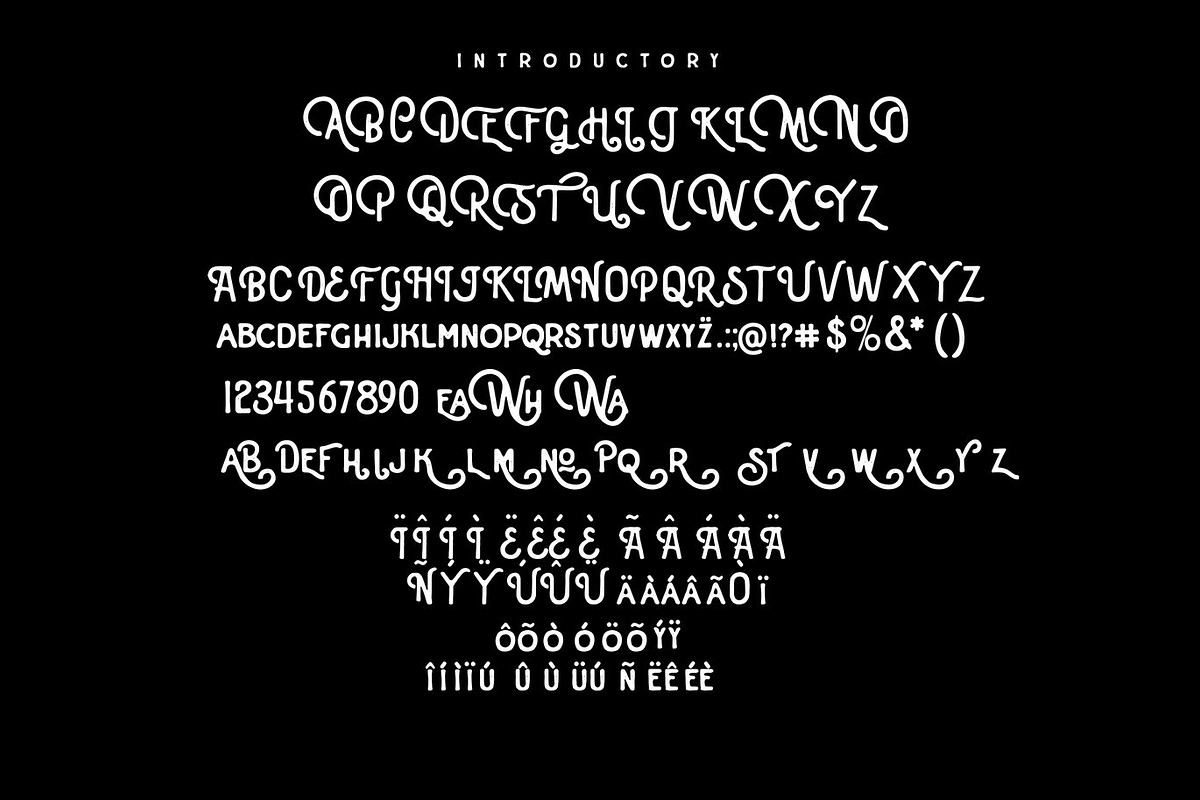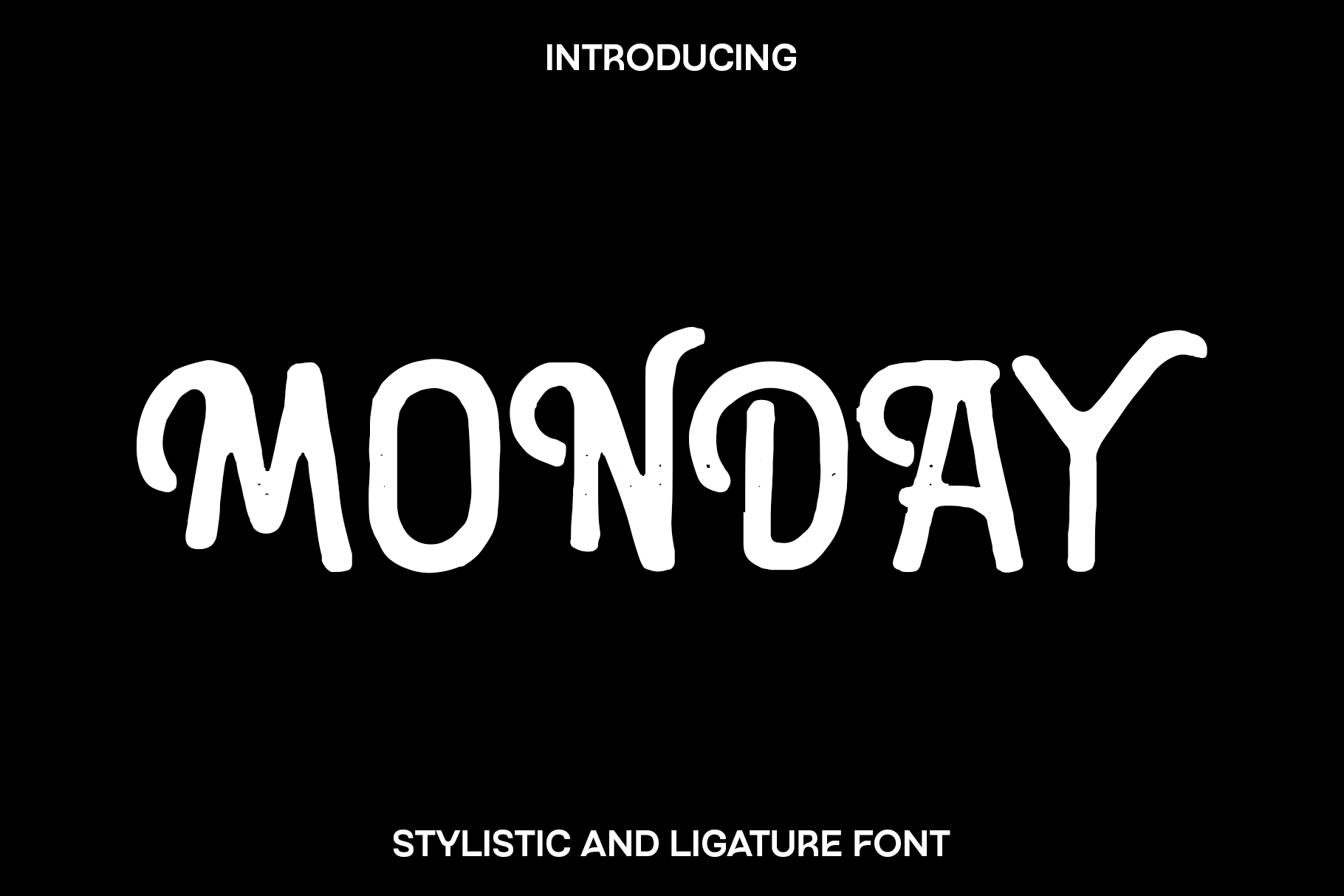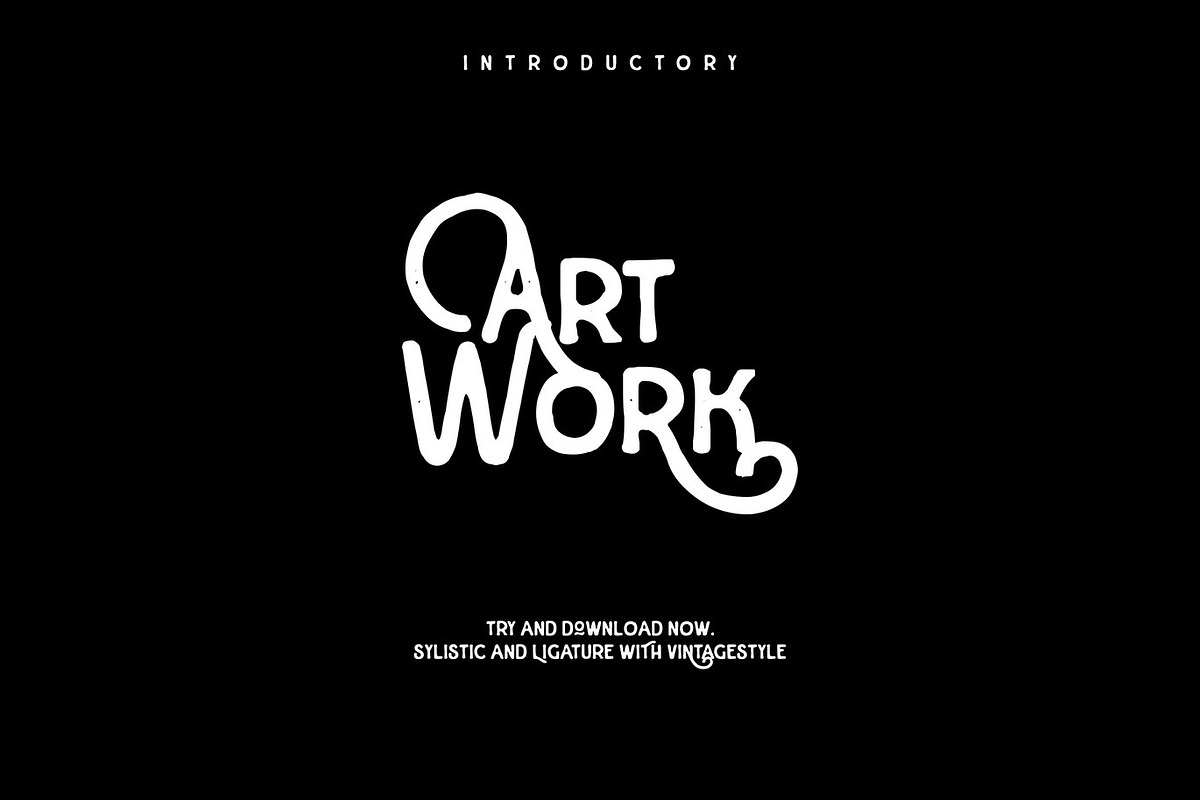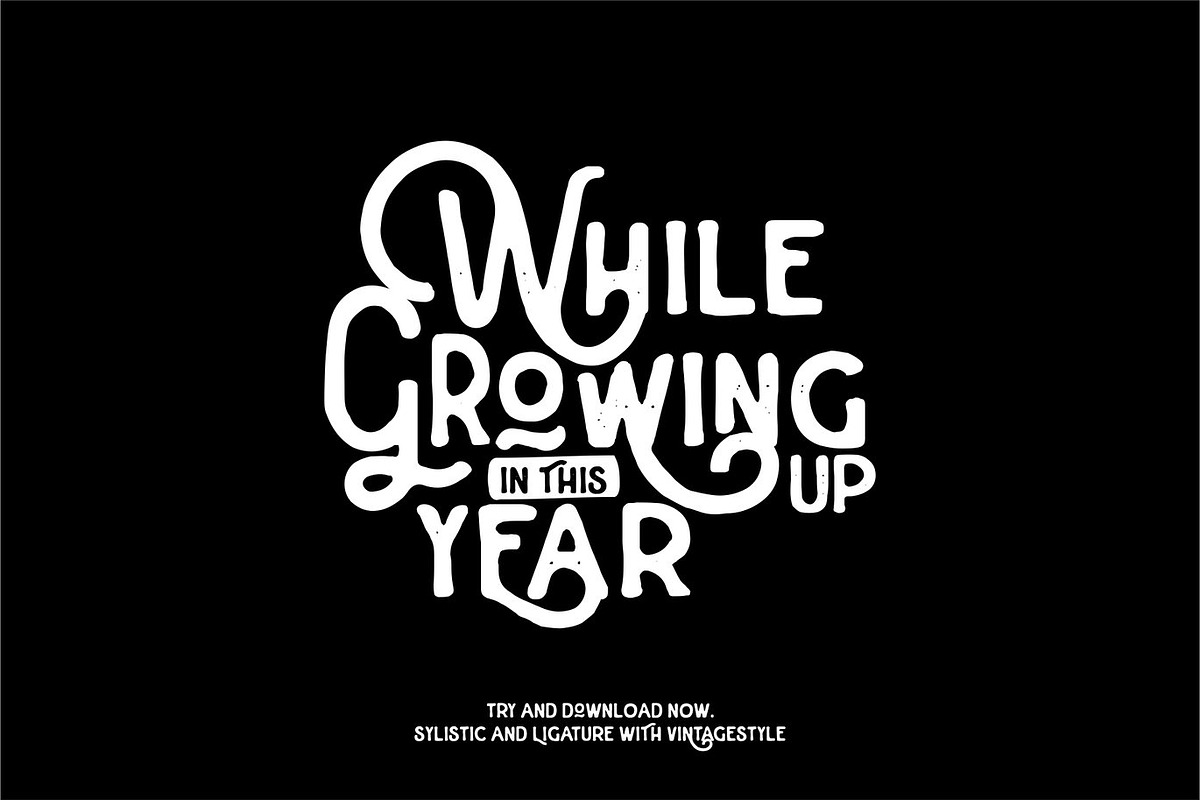
Monday - Hand Drawn Display Font
Monday is a charming hand drawn display font created to bring warmth, creativity, and personality into your designs. Inspired by natural handwriting and artistic sketch styles, Monday delivers a relaxed and expressive look that feels authentic and full of character. Every stroke is carefully crafted to create a playful yet stylish appearance, making this font perfect for designers who want typography with a personal and creative touch.
This font shines beautifully in branding, packaging, posters, social media graphics, invitations, merchandise, quotes, and creative editorial projects. Its hand drawn aesthetic adds a friendly and approachable atmosphere that instantly makes designs feel more lively and engaging. Whether you are creating modern lifestyle branding or artistic promotional materials, Monday helps your work stand out with originality and charm.
Monday combines casual elegance with creative flexibility. The included alternate and stylistic characters allow designers to explore unique typography compositions and build visually dynamic layouts with ease. Its ligatures create smooth and natural text flow, enhancing the handcrafted feel while maintaining readability across different applications.
Designed for creators who love expressive typography, Monday transforms ordinary text into artistic lettering filled with emotion and style. Its versatile personality works beautifully in both digital and print projects, making it a valuable addition to any creative font collection.
Monday Hand Drawn Font Features:
• Uppercase and lowercase characters
• Numerals and punctuation
• Functional alternates
• Stylistic characters
• Ligature features
• Hand drawn display style
• Perfect for branding, posters, invitations, and social media
• Creative and expressive typography appearance